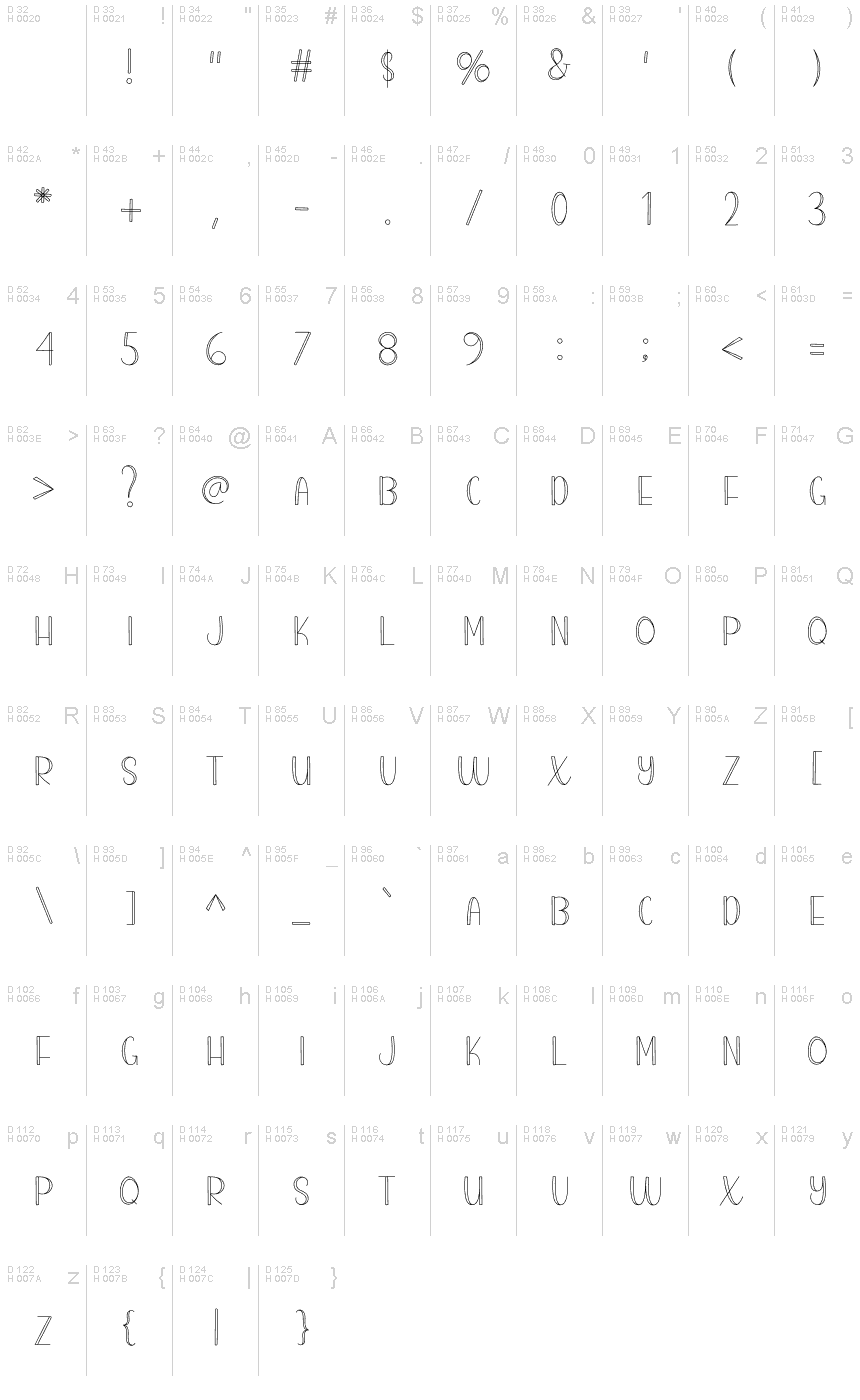
Line
Line, the semi-light outlined display font by Belina Studio, is a versatile typeface suitable for a wide range of creative projects. Its condensed width makes it ideal for headlines and titles that need to grab attention while maintaining a sleek and contemporary look. The outlined style gives it an edgy and modern feel, making it perfect for designs that require a touch of boldness. Whether you're designing logos, posters, or packaging, Line's unique style is sure to make your project stand out from the crowd. Give your next project an added edge with the Line semi-light condensed outlined font!
the latest style letters are perfect for wall displays, wedding invitations, social media post logos, advertisements, product packaging, product designs, labels, photography, watermarks, invitations, stationery, and any project that requires taste handwriting.